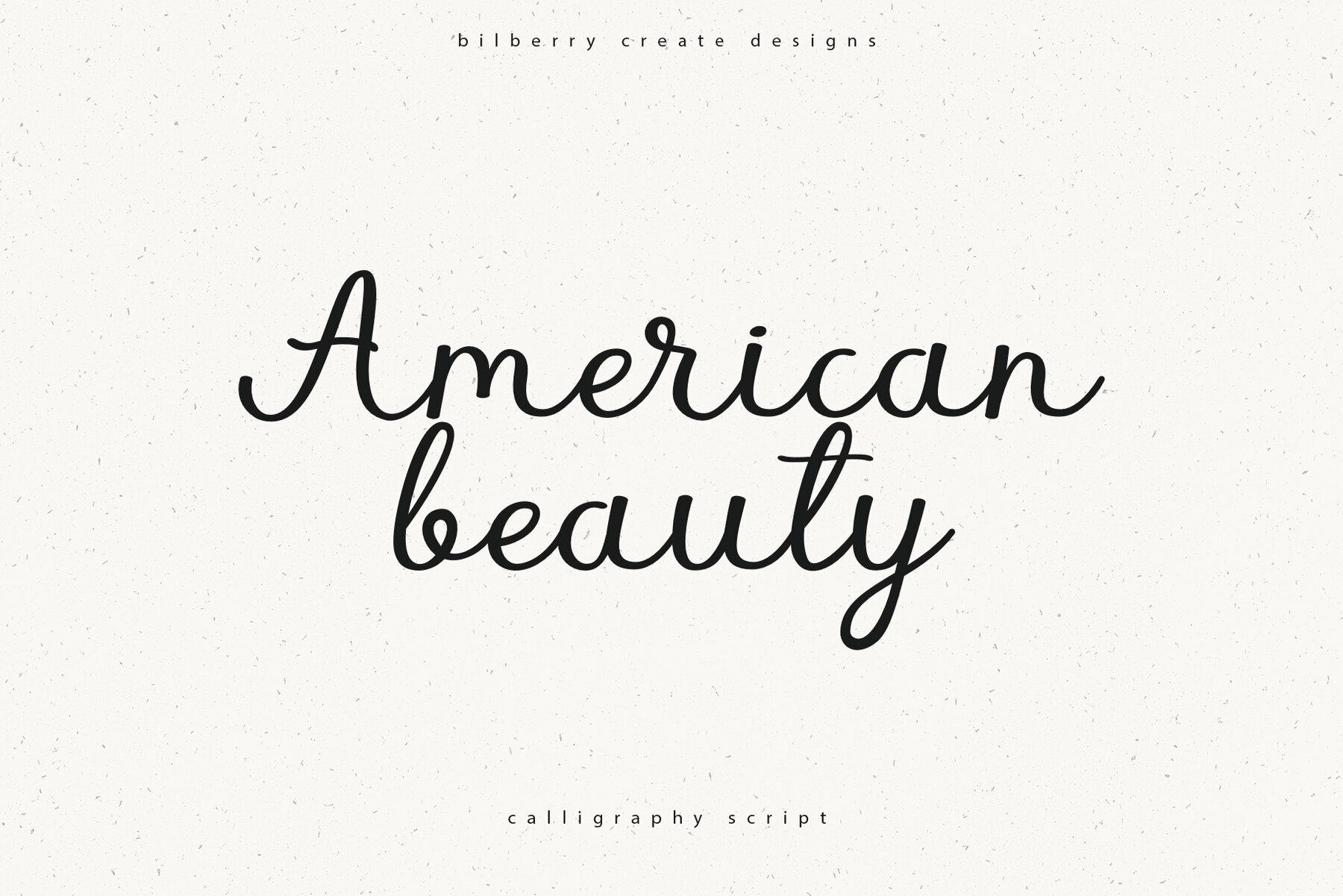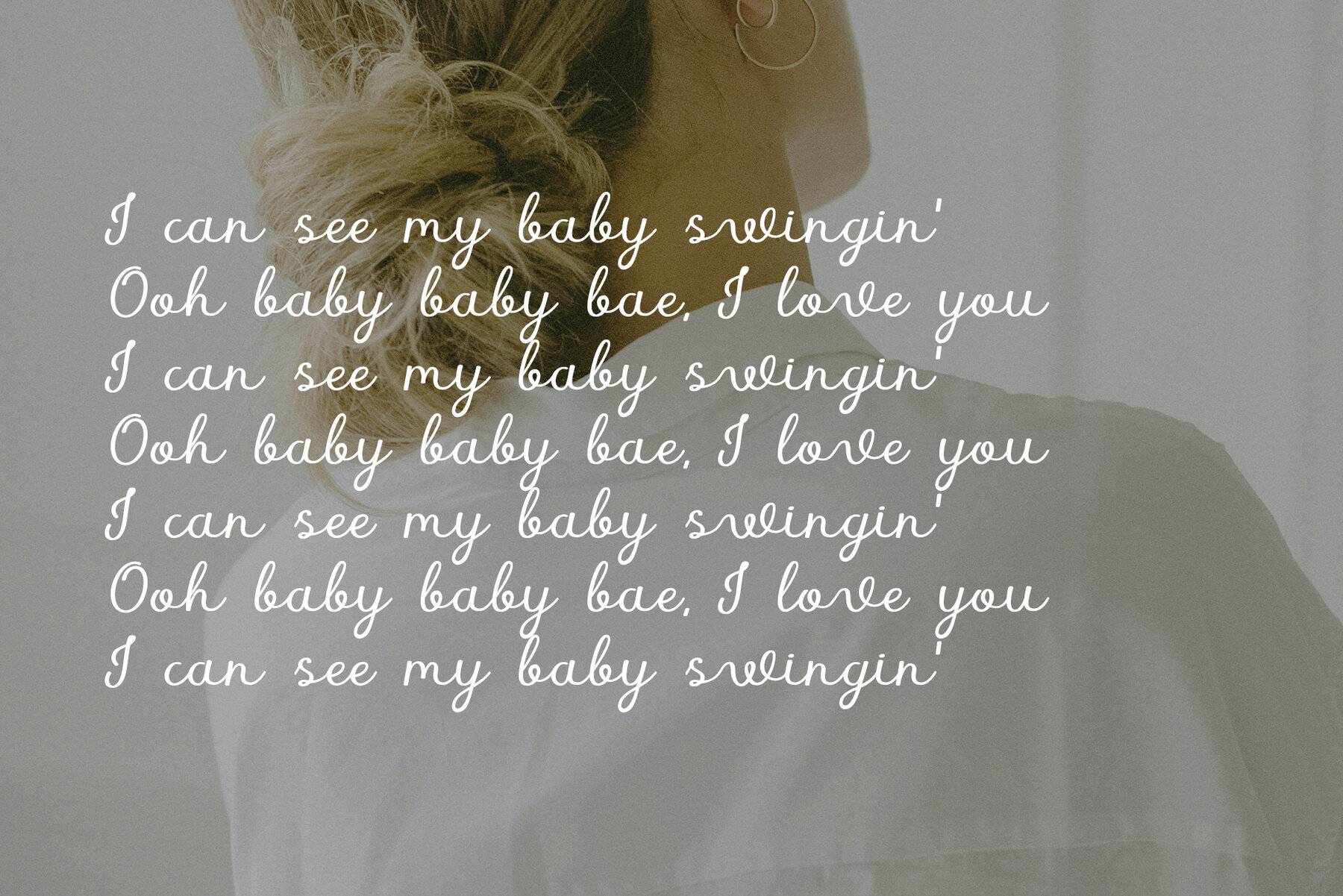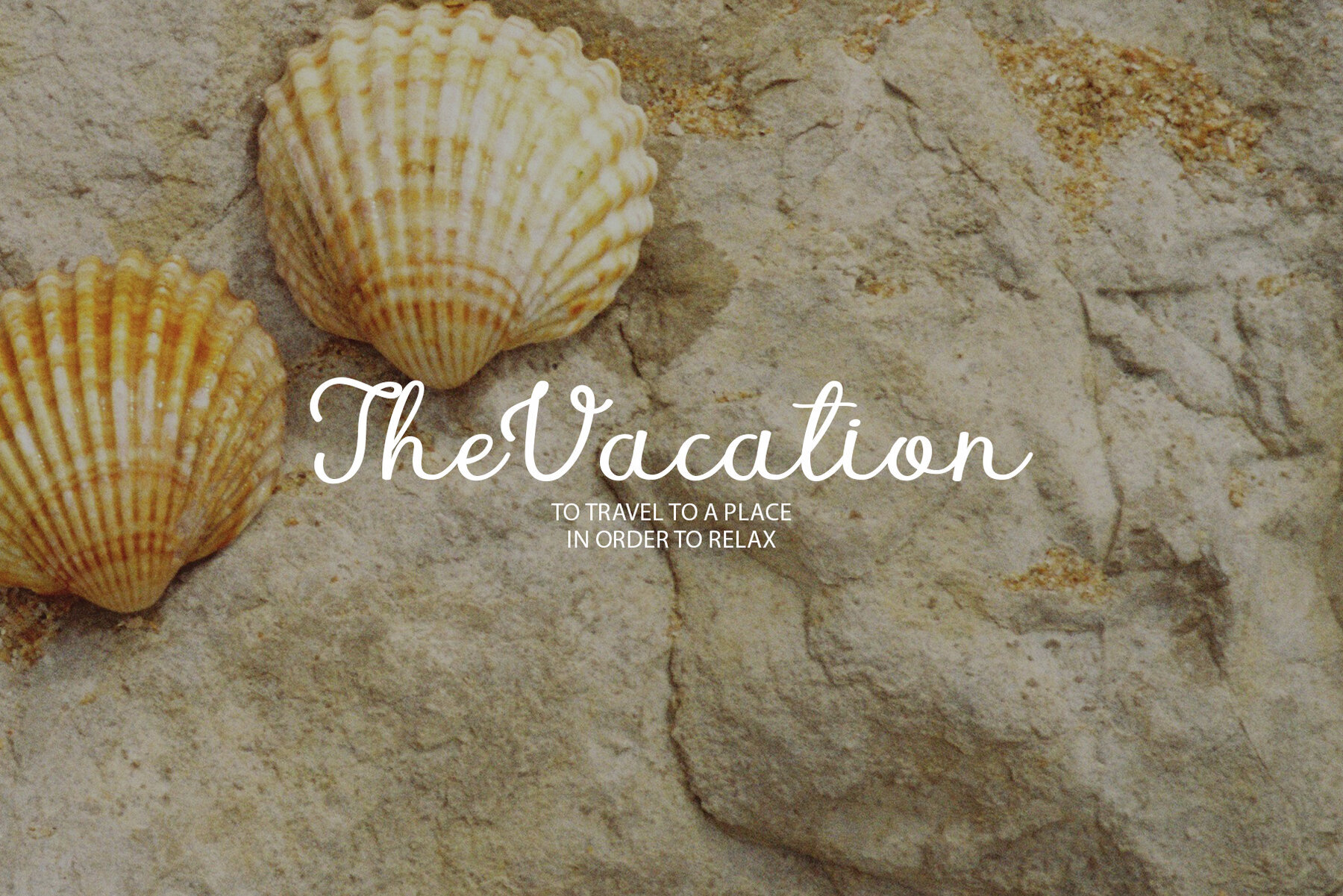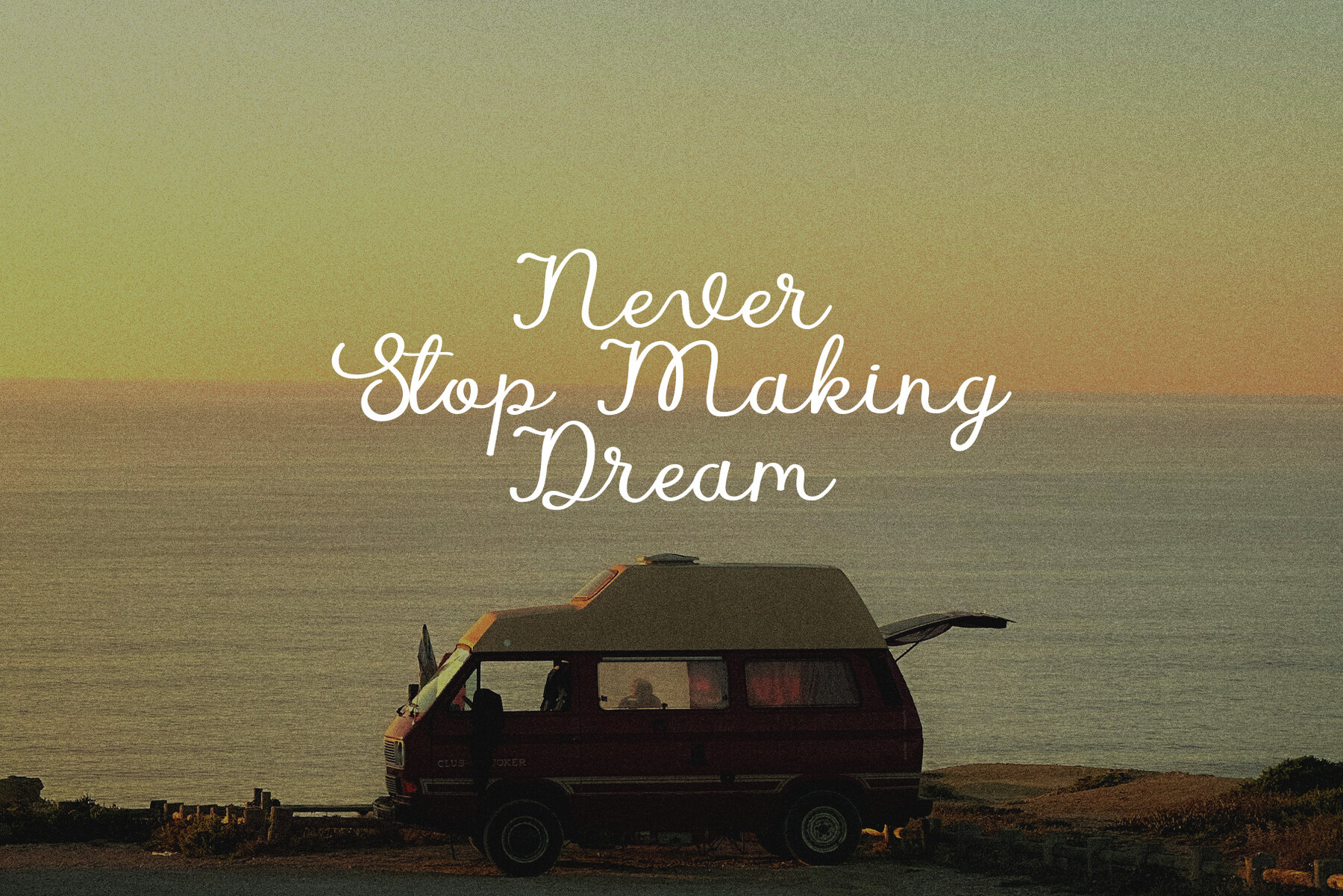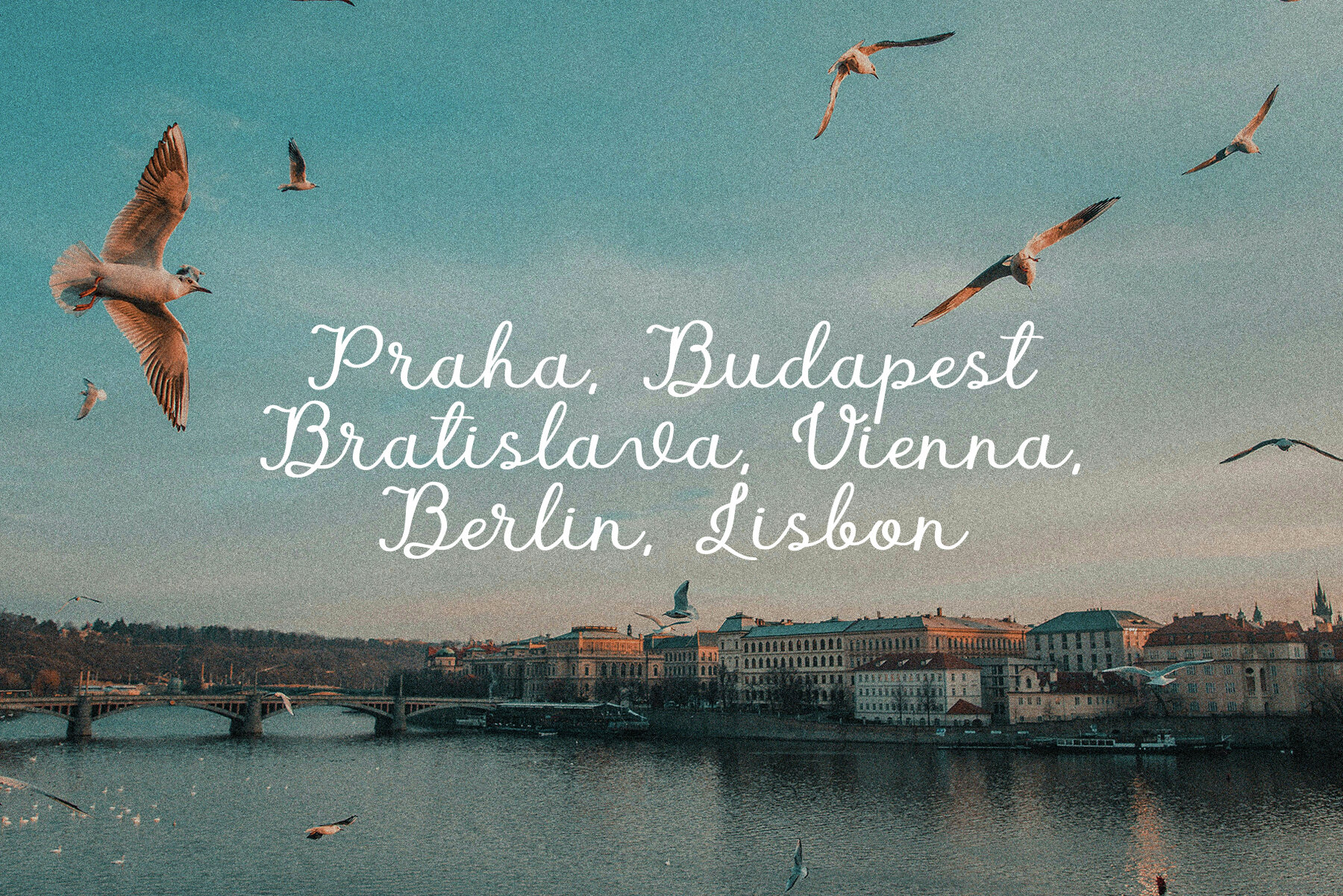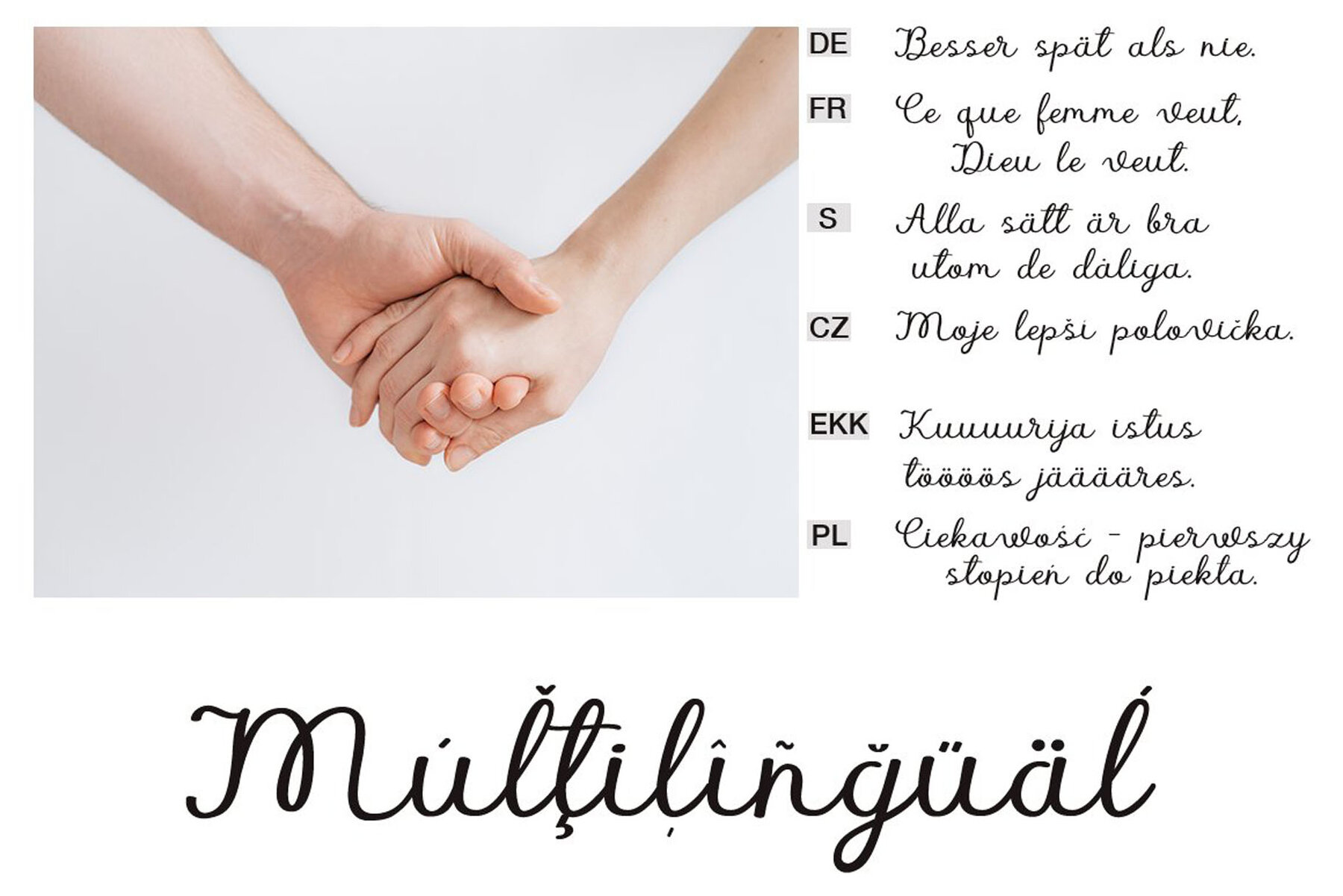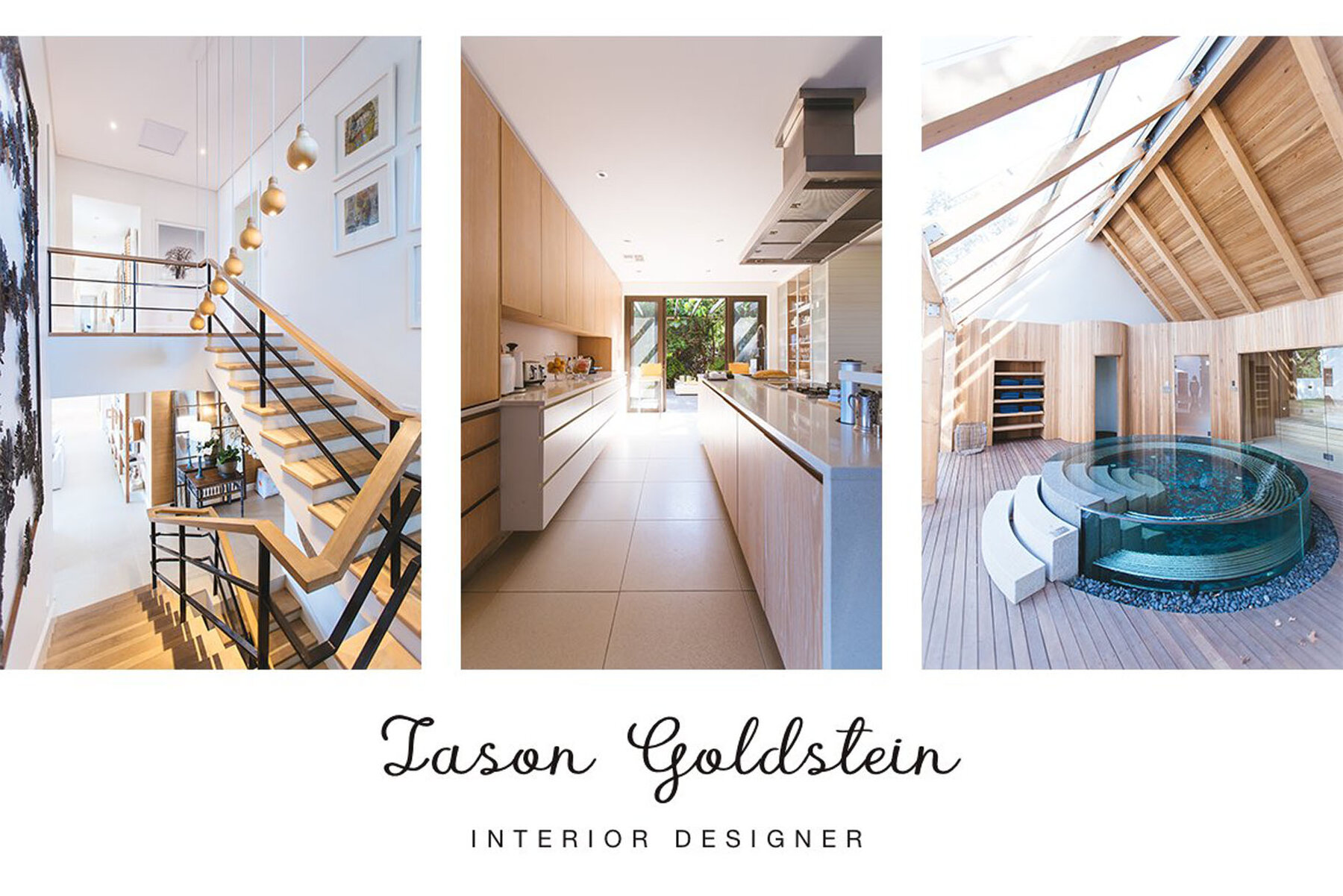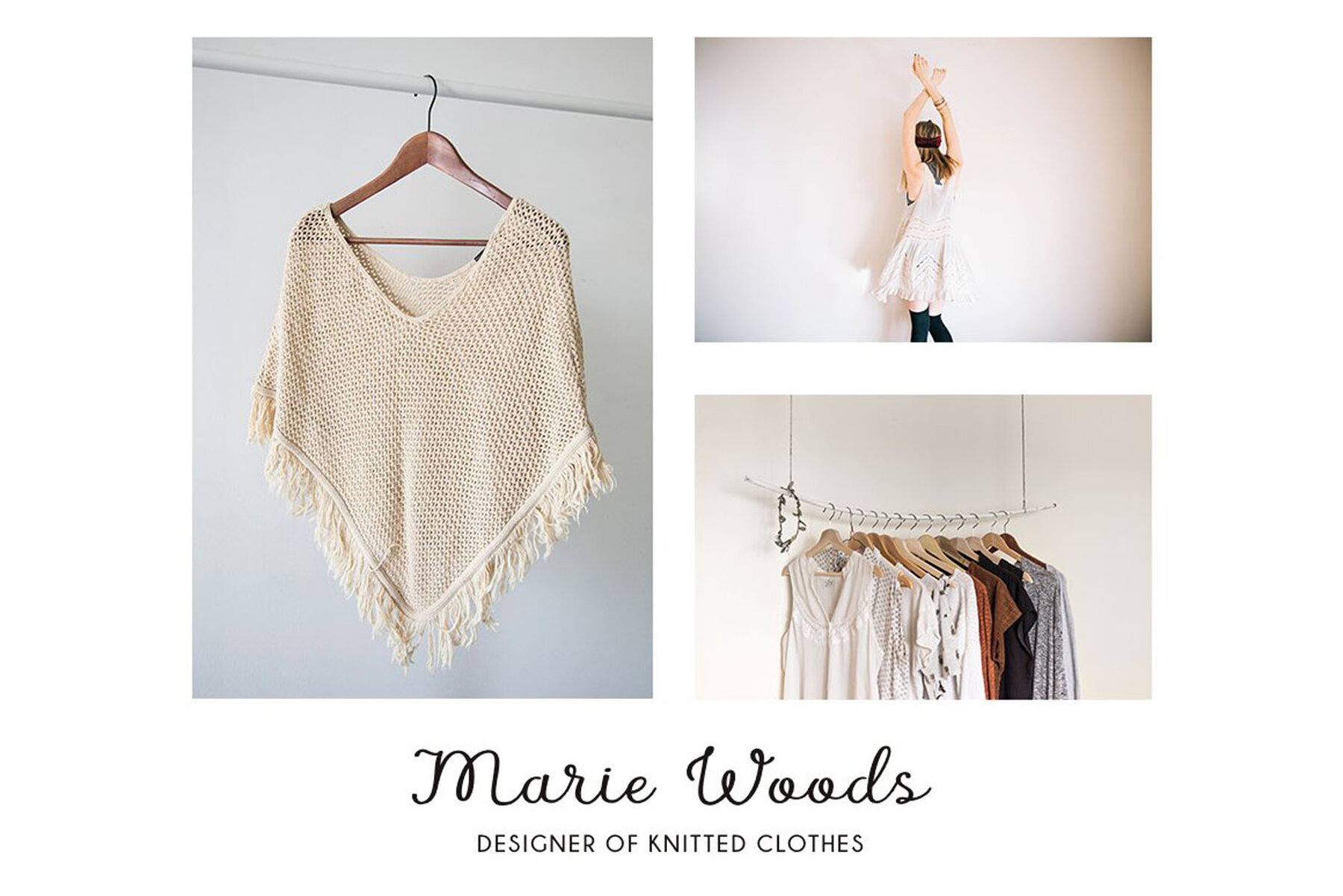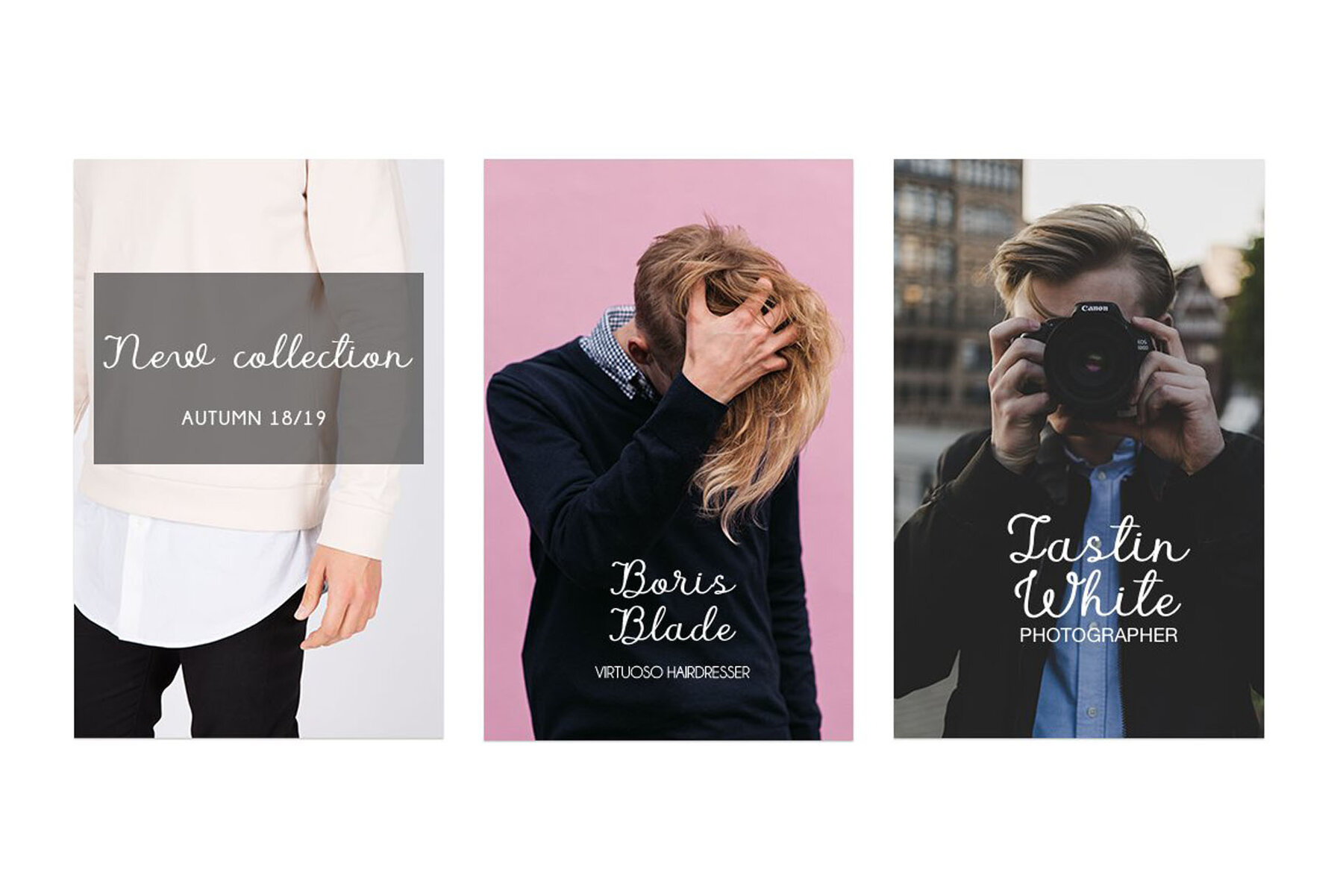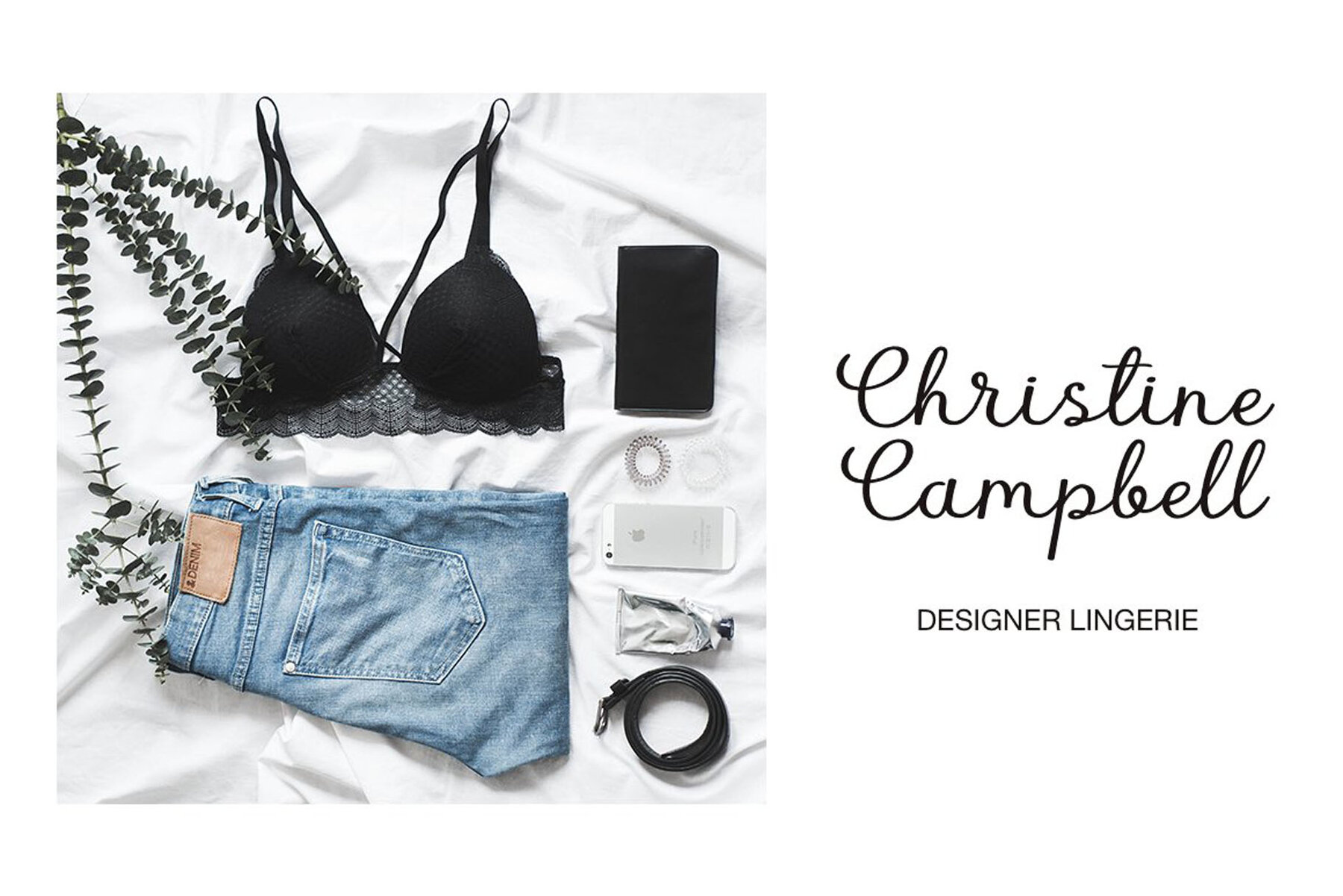
American Beauty 1
This script typeface exhibits a hand-crafted aesthetic with a sense of elegance and fluidity, reminiscent of modern calligraphy. Its playful yet legible characters make it suitable for invitations, branding, and personal correspondenc,e, offering a warm and inviting feel that is both stylish and organic. A contemporary choice for graphic designers looking to add a personal, expressive touch to their work.